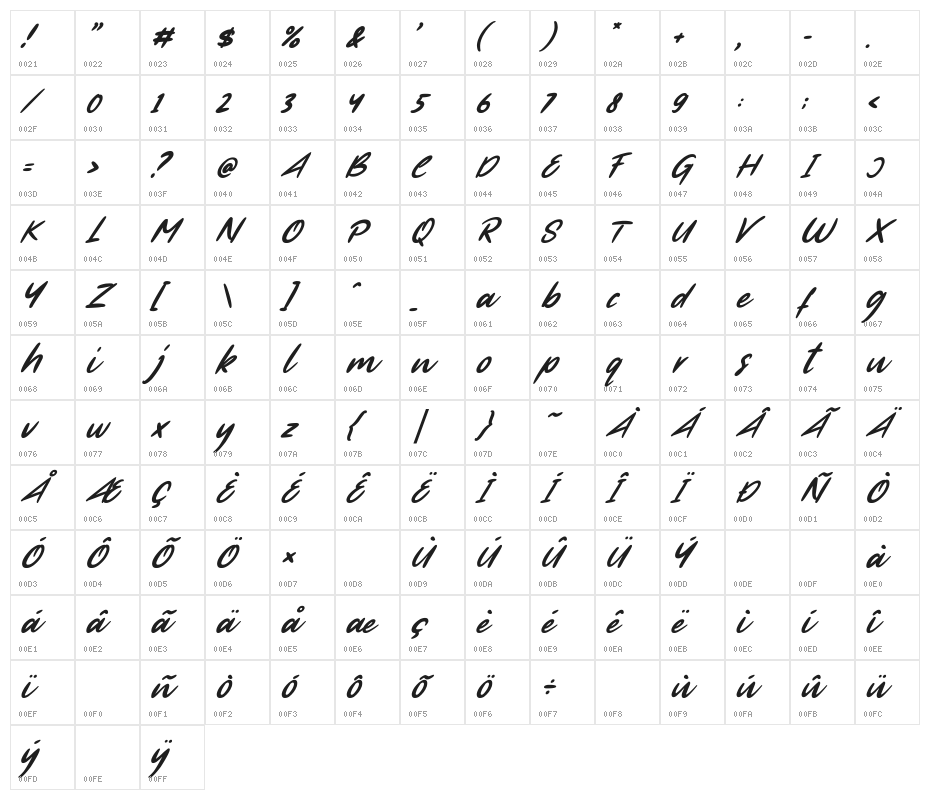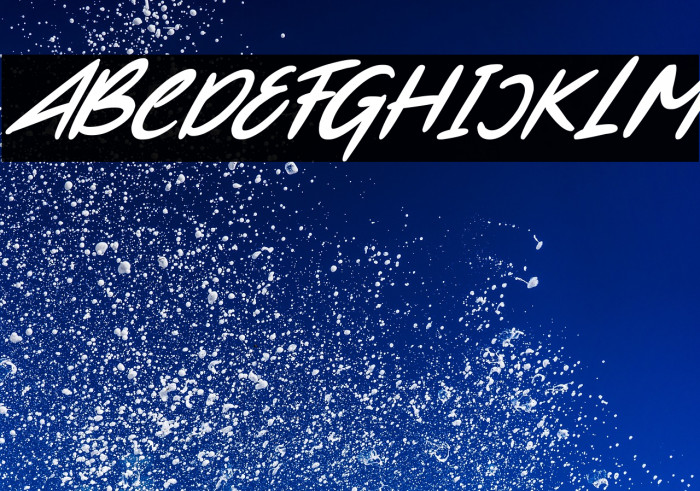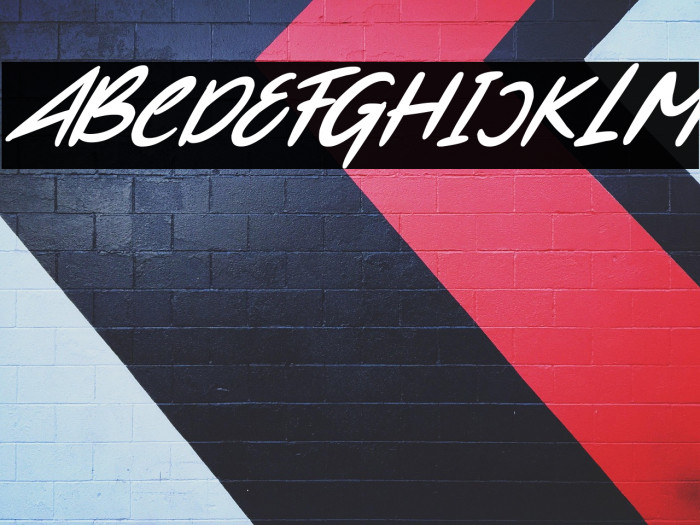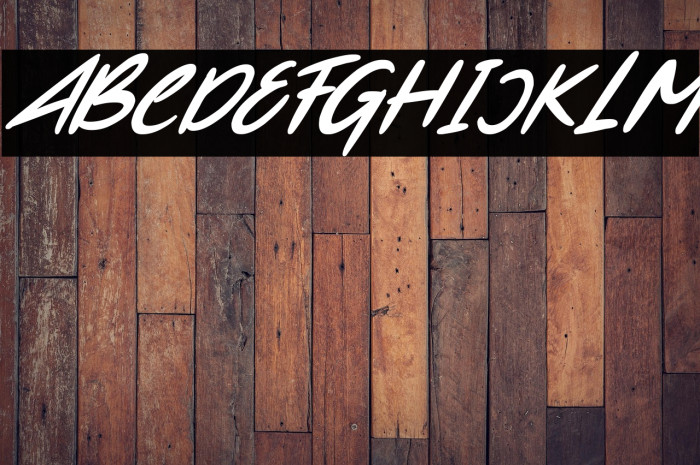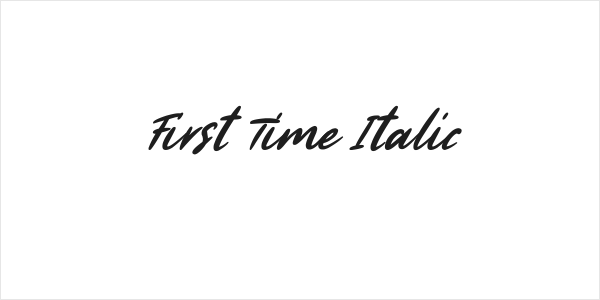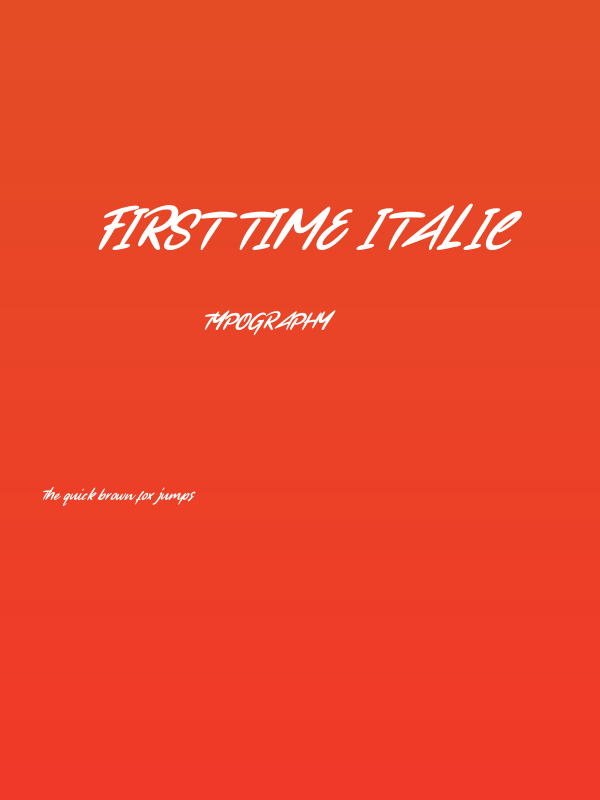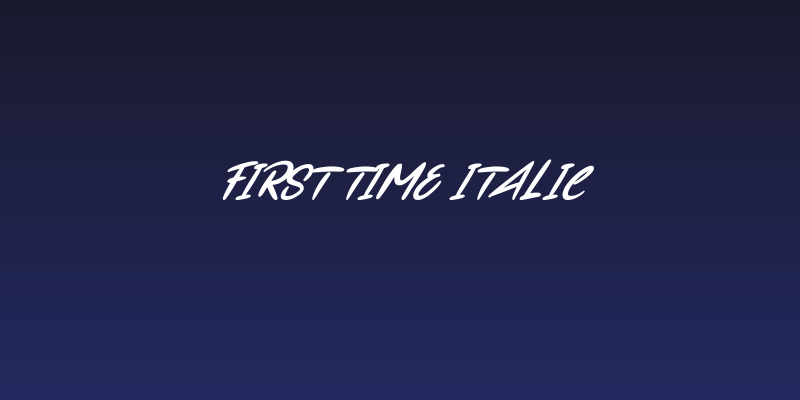
First Time Italic Font
First Time Italic Description
This font features a dynamic and flowing script style, characterized by its italicized and connected letterforms. The strokes are bold and expressive, giving a sense of movement and energy. The uppercase letters are slightly more angular, while the lowercase letters maintain a smooth, cursive flow. Numbers and special characters are designed to match the overall aesthetic, ensuring consistency across all elements. The font's boldness and slant make it particularly eye-catching, suitable for creating impactful designs.
| Proposed Projects | Ideal for branding, logos, invitations, and any design requiring a personal, handwritten touch. |